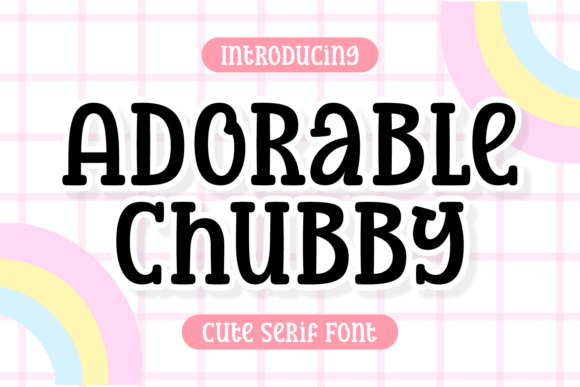
Adorable Chubby Font: The Perfect Choice for Playful Designs
Are you looking for a font that can add a touch of playfulness and charm to your designs? Look no further than the Adorable Chubby font. This delightful serif font is bursting with personality, making it the perfect choice for children’s designs, cute branding, fun quotes, and joyful stationery.
What is Adorable Chubby Font?
Adorable Chubby is a playful serif font that features bubbly curves and a friendly structure. Its unique design makes it stand out from other fonts, and its charm is sure to capture the hearts of your audience. Whether you’re designing for children or adults, this font is sure to bring a smile to their faces.
Characteristics of Adorable Chubby Font
The Adorable Chubby font has several characteristics that make it a great choice for playful designs. Some of its key features include:
- Bubbly curves: The font features rounded curves that give it a friendly and approachable feel.
- Serif design: The font has a serif design, which gives it a classic and timeless look.
- Playful structure: The font’s structure is playful and fun, making it perfect for designs that require a lighthearted touch.
Uses of Adorable Chubby Font
The Adorable Chubby font is versatile and can be used for a variety of design projects. Some of the most popular uses of this font include:
- Children’s designs: The font is perfect for designing materials for children, such as books, posters, and flyers.
- Cute branding: The font’s playful design makes it a great choice for branding projects that require a fun and friendly approach.
- Fun quotes: The font is perfect for creating fun and playful quotes that can be used on social media, posters, and other materials.
- Joyful stationery: The font can be used to create joyful stationery, such as greeting cards, invitations, and thank-you cards.
Benefits of Using Adorable Chubby Font
Using the Adorable Chubby font can bring several benefits to your designs. Some of the most significant advantages of using this font include:
- Unique design: The font’s unique design makes it stand out from other fonts, ensuring that your designs will be noticed.
- Playful feel: The font’s playful feel can help to create a fun and lighthearted atmosphere in your designs.
- Easy to read: The font is easy to read, making it perfect for designs that require a clear and legible font.
- Versatile: The font is versatile and can be used for a variety of design projects.
Tips for Using Adorable Chubby Font
To get the most out of the Adorable Chubby font, here are some tips to keep in mind:
- Use it for headings: The font is perfect for headings and titles, where its playful design can be showcased.
- Pair it with a simple font: Pairing the Adorable Chubby font with a simple font can create a nice contrast and make your designs more visually appealing.
- Experiment with colors: The font looks great in bright and bold colors, so don’t be afraid to experiment with different color schemes.
- Use it sparingly: While the font is playful and fun, it can be overwhelming if used excessively. Use it sparingly to create a balanced design.
The Adorable Chubby font is a playful serif font that is bursting with charm and personality. Its bubbly curves and friendly structure make it the perfect choice for children’s designs, cute branding, fun quotes, and joyful stationery. With its unique design, playful feel, and versatility, this font is sure to bring a touch of playfulness to your designs.